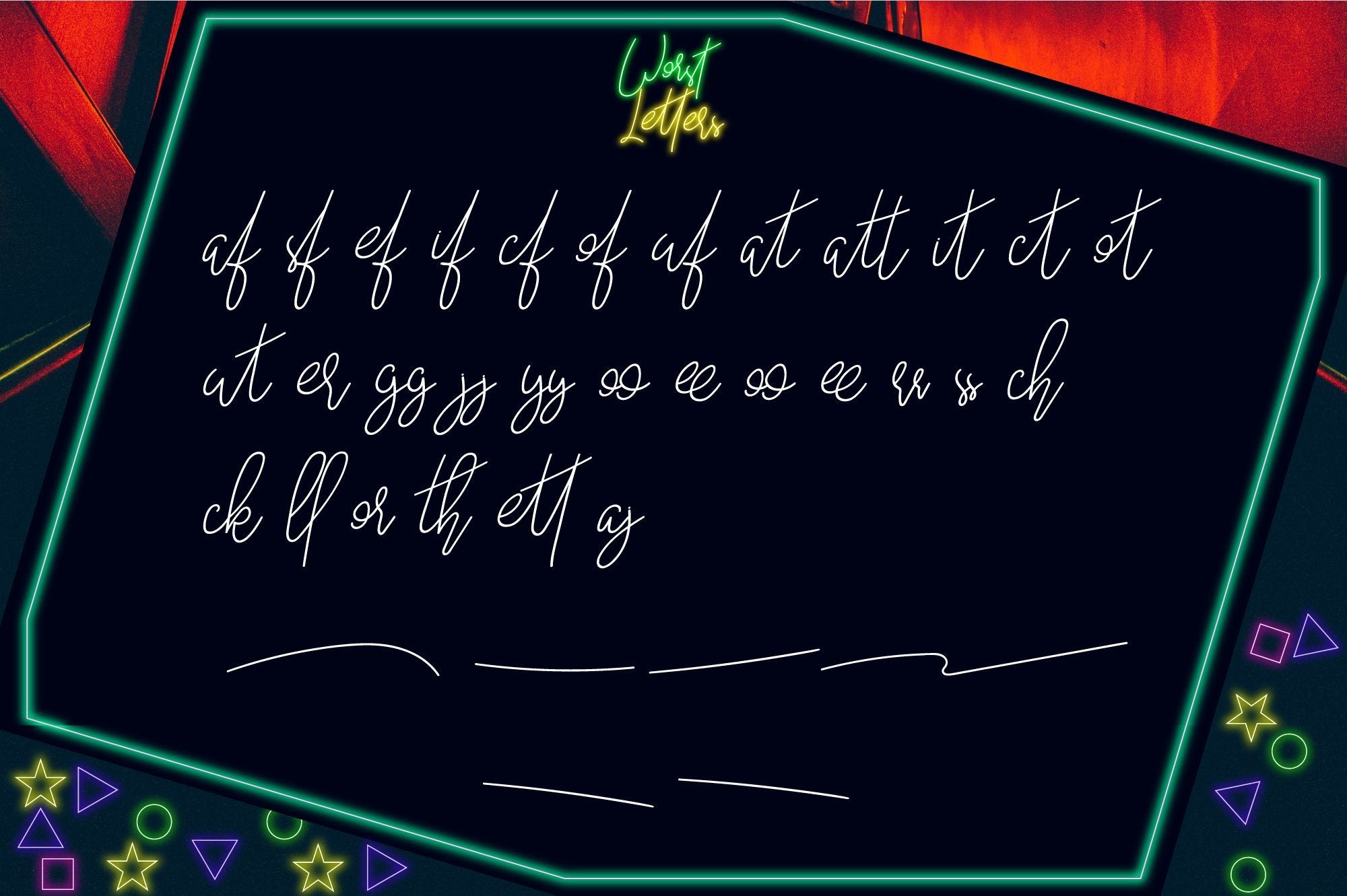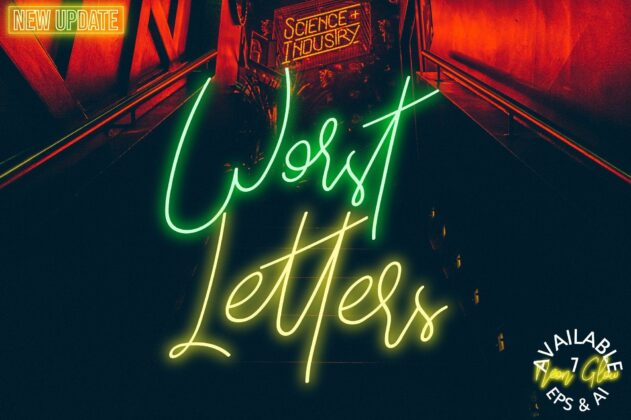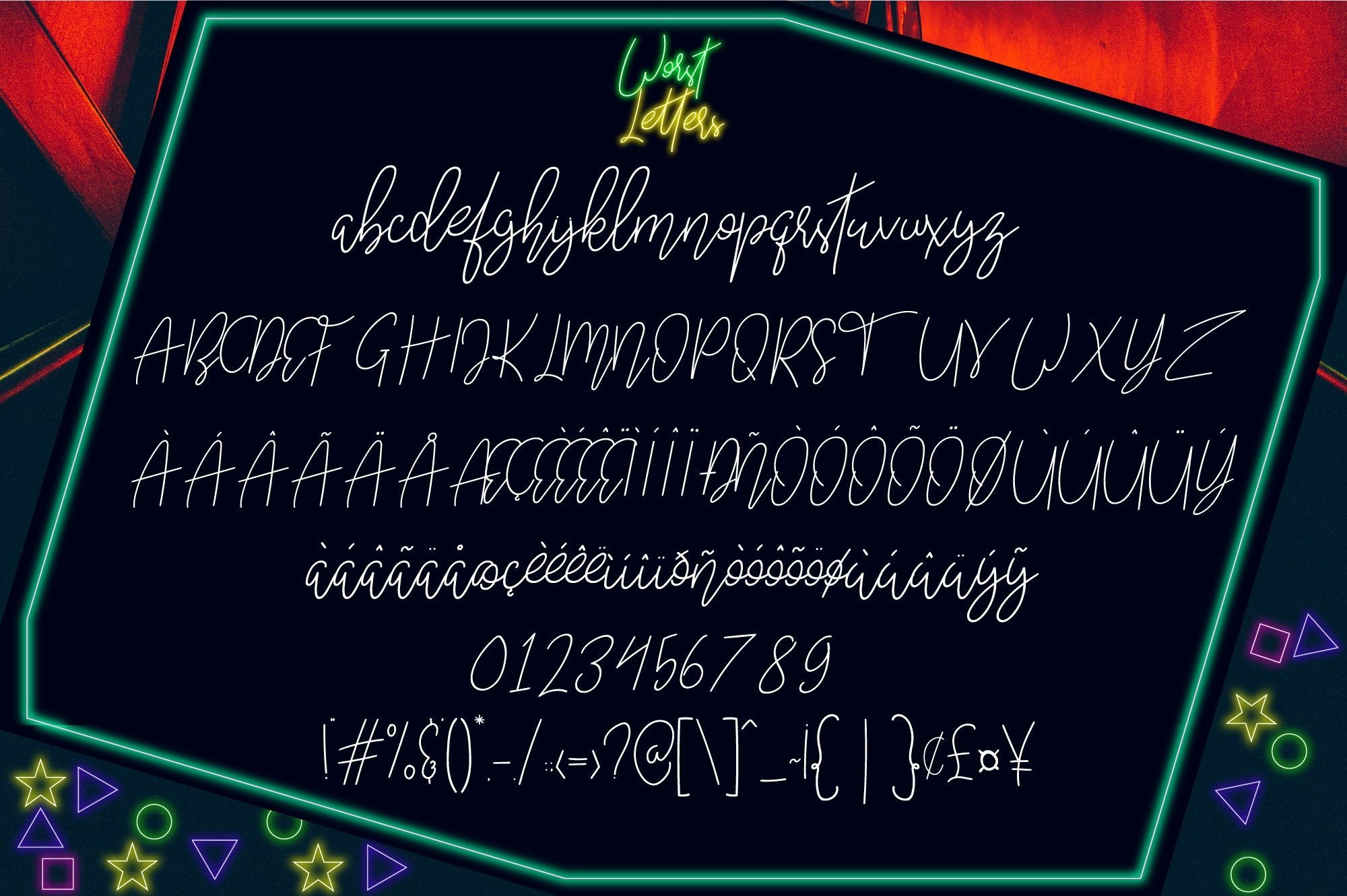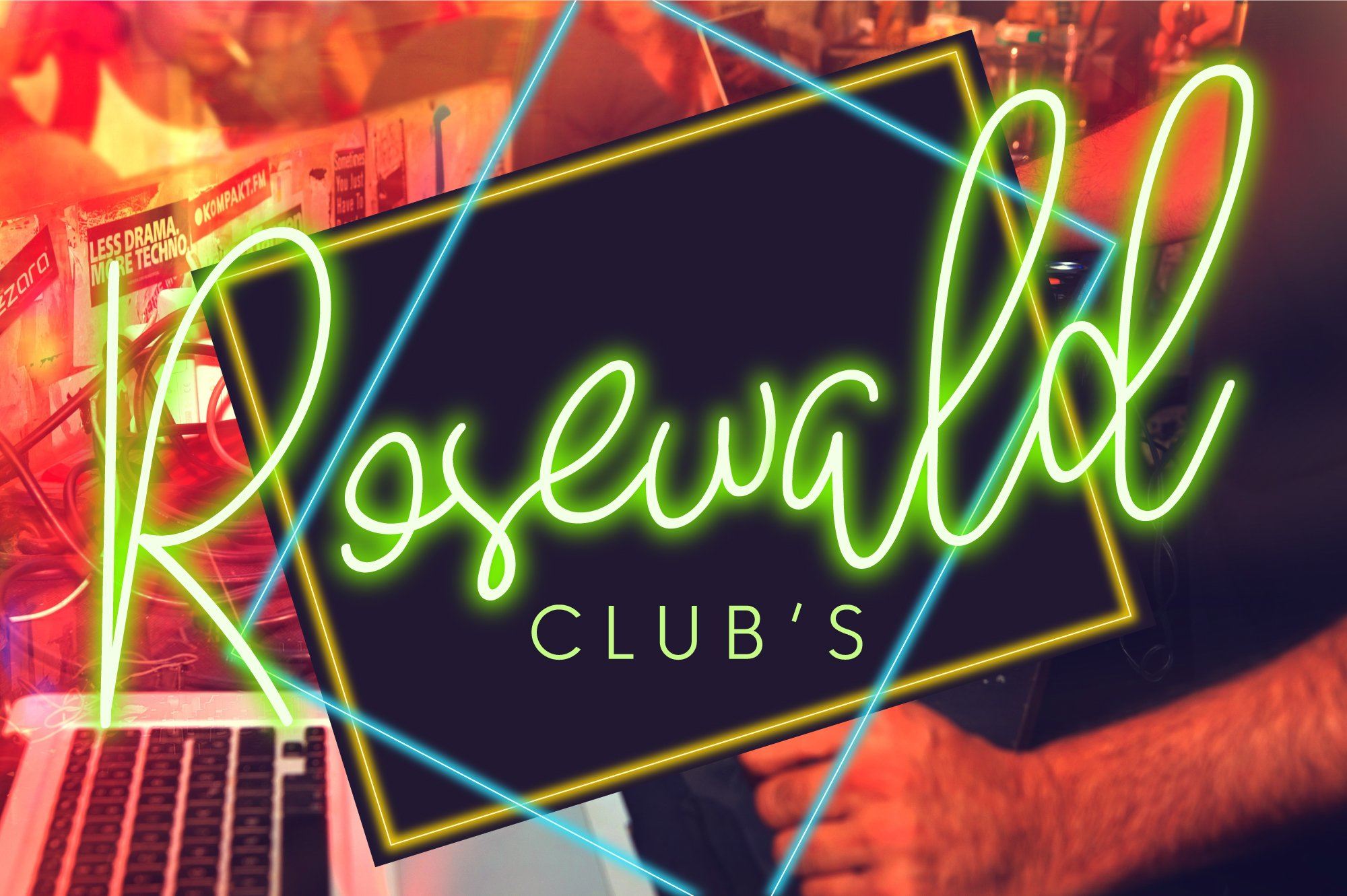
Worst Letters Bonus Neon Effect
About Worst Letters Bonus Neon Effect
HURRY UP LIMITED DISCOUNT 3 $ FOR 1000 FIRST BUYER The Worst Letters is a new monoline script font. It has a natural feel and is perfect for signatures, branding, and much more! Features : PUA Encoded 100% Acessibility Standard Ligatures Swash If you don’t have a program that supports OpenType features such as Adobe Illustrator and CorelDraw X Versions, you can access all the alternate glyphs using Font Book (Mac) or Character Map (Windows).To Access Alternate Characters Click The Link Below: How to access alternates in Adobe illustrator CS https://www.youtube.com/watch?v=geL0Ye02Ryk How to access alternates in Adobe illustrator CC https://www.youtube.com/watch?v=V25yiUh8BcE How to access alternates in Ms Wordhttps://www.youtube.com/watch?v=HxkhZiCuwEw How to access alternates in Coreldraw X7 https://www.youtube.com/watch?v=UBVsufJjons How to access alternates in Indesign CS https://www.youtube.com/watch?v=HgZTCxKG14Q How to access alternates in Adobe Photoshop CC https://www.youtube.com/watch?v=BYKXl58AdNY If you have any question, don’t hesitate to contact me by email  Thanks and happy designing ???? Thank You for purchase!